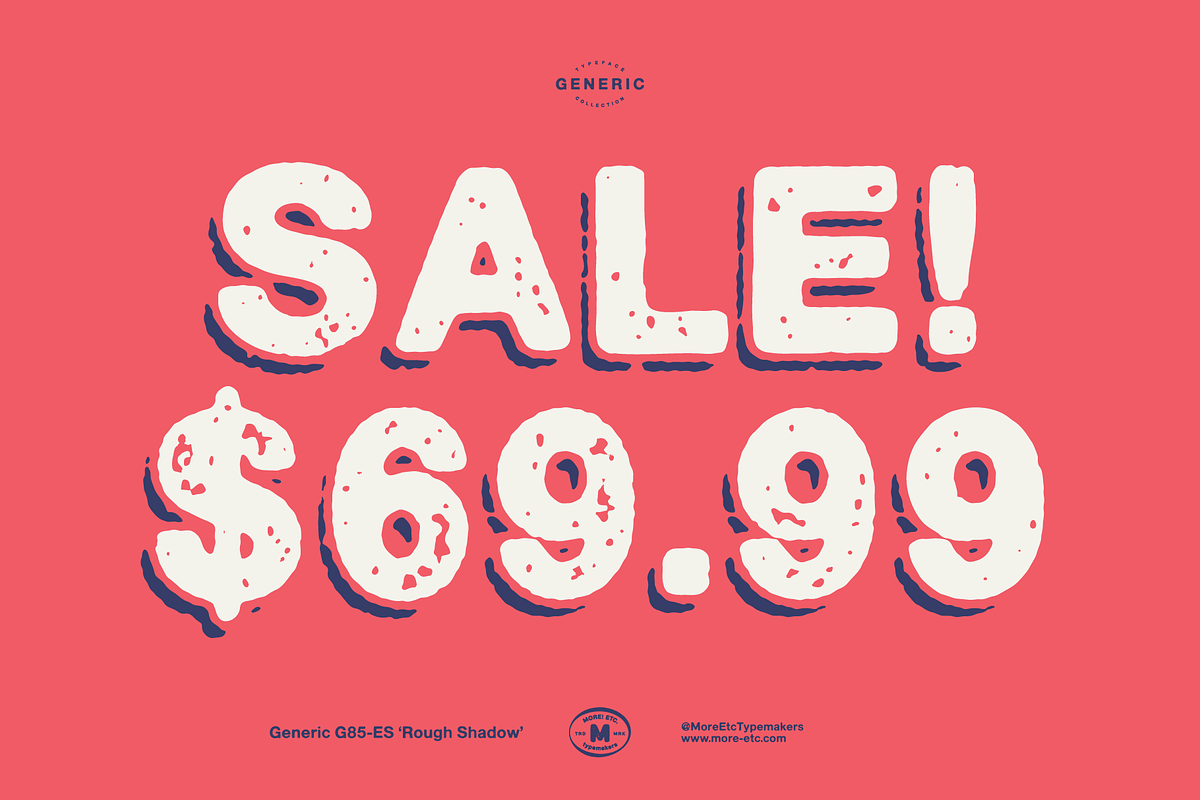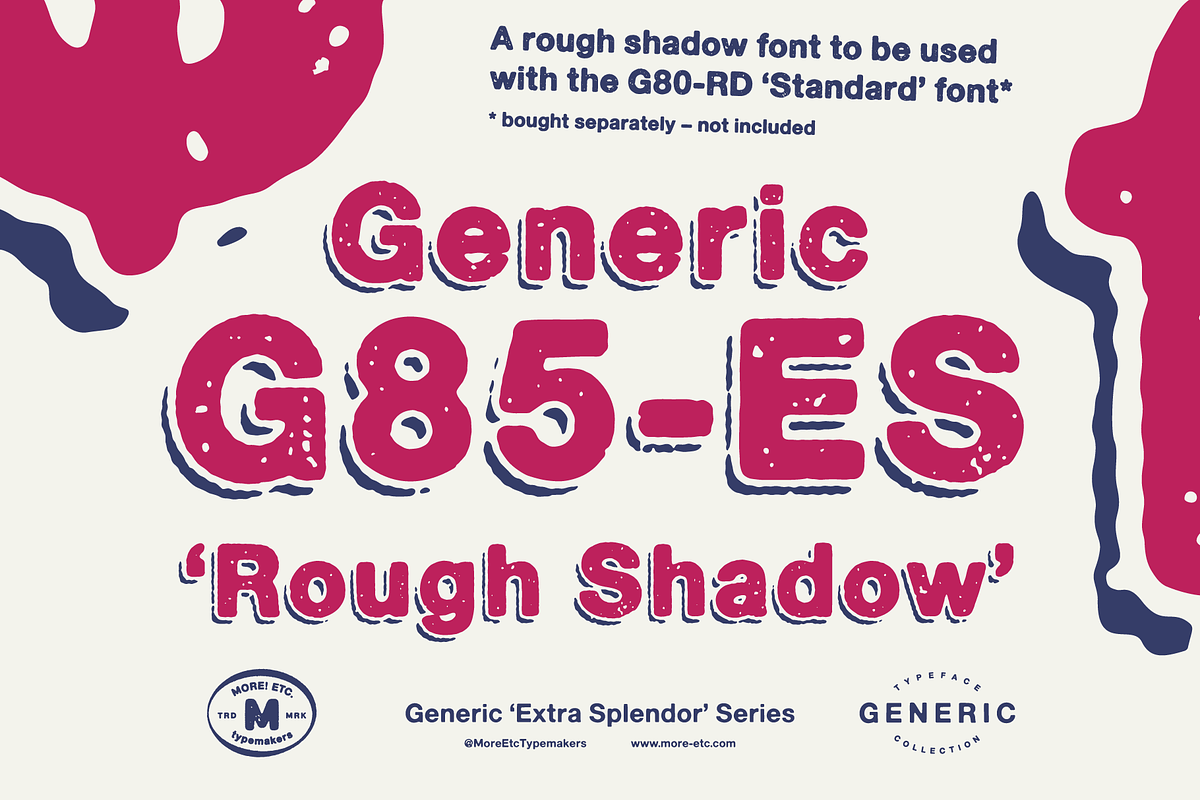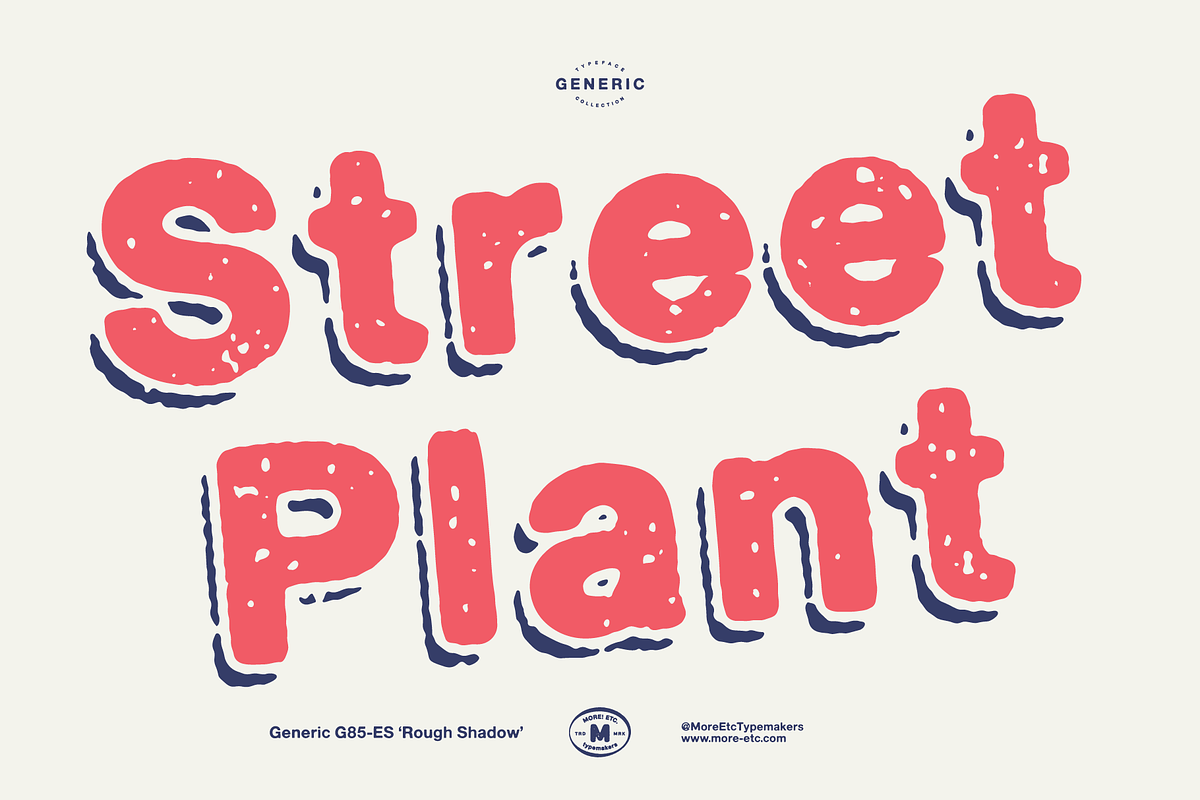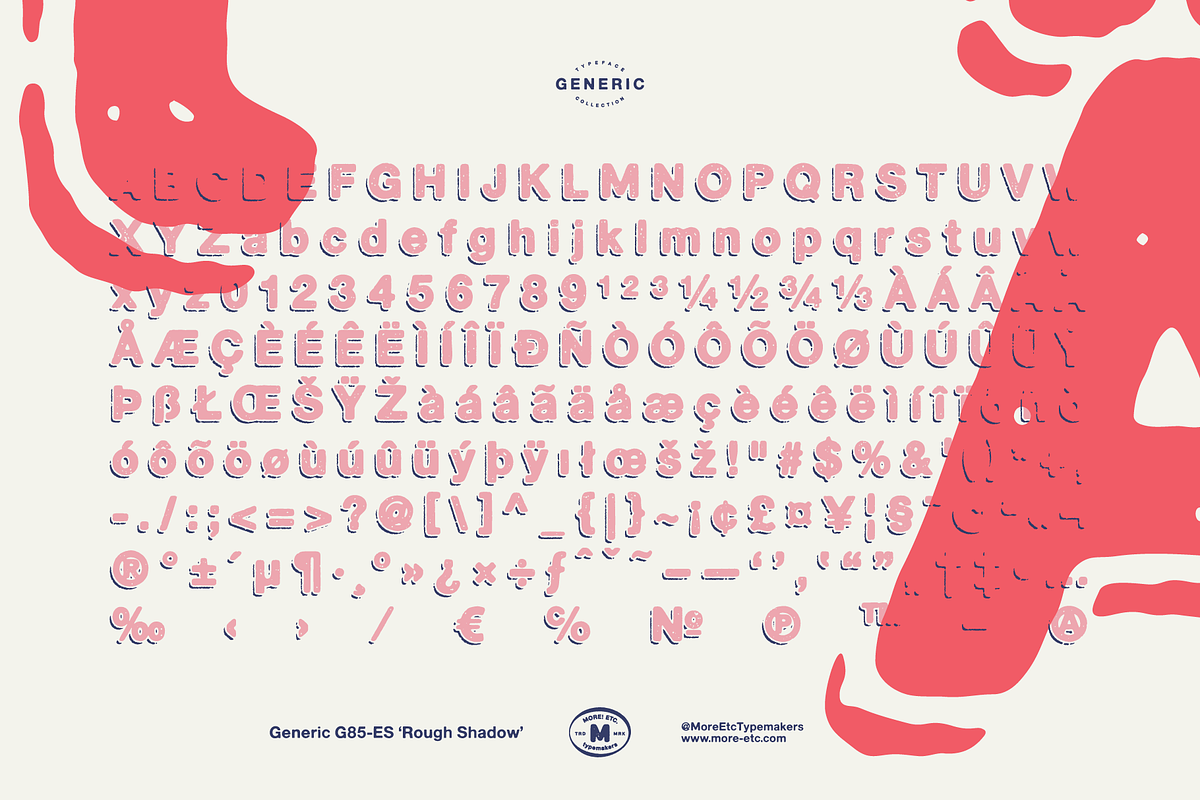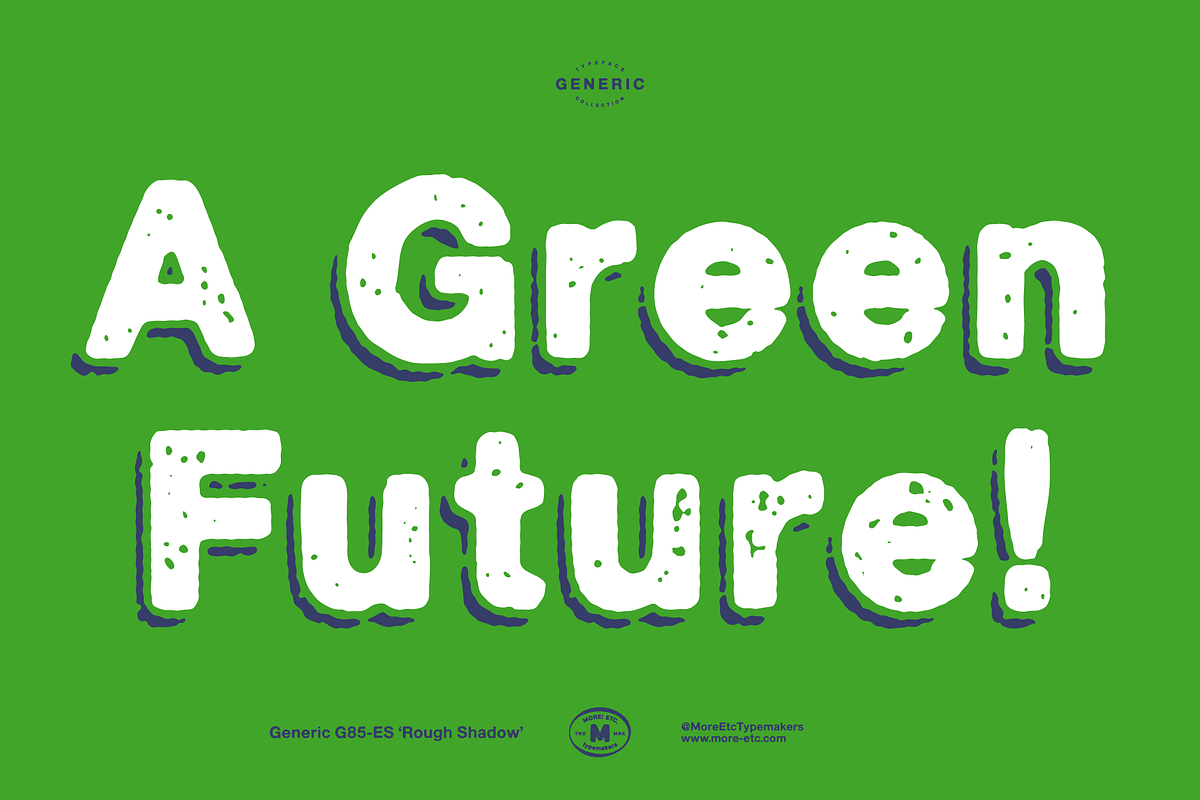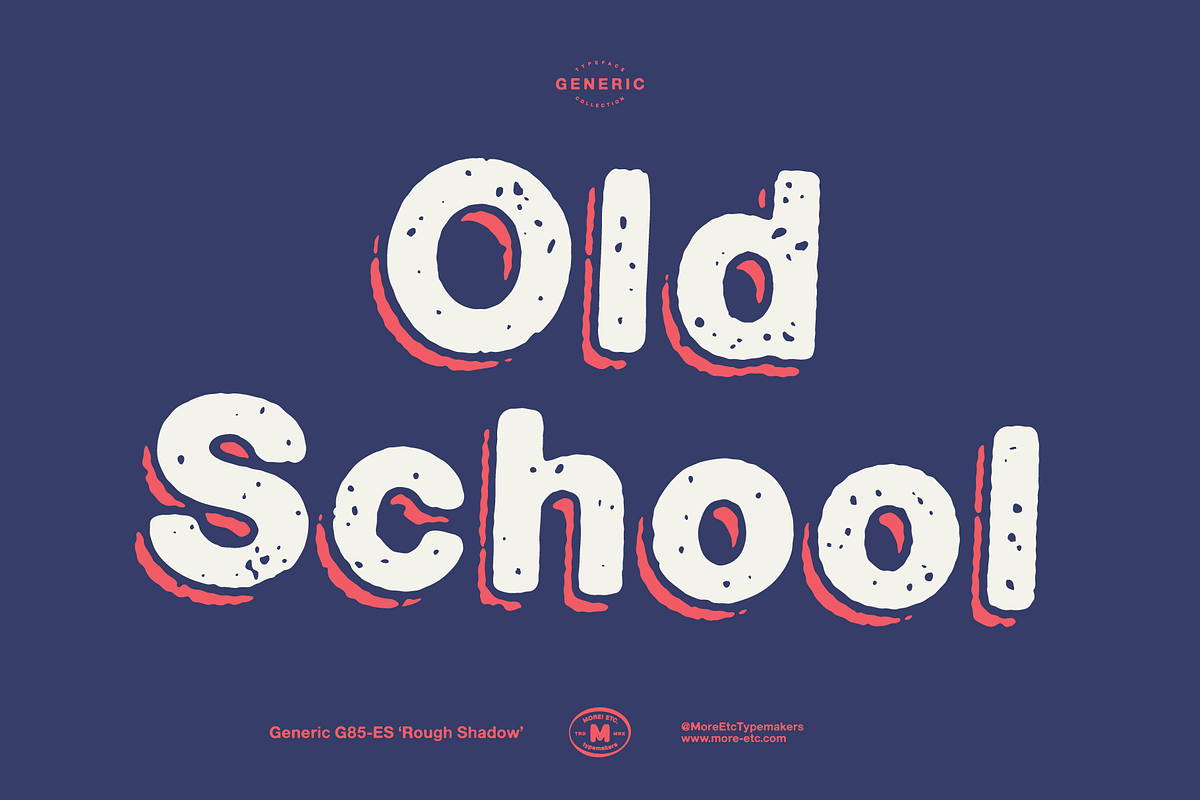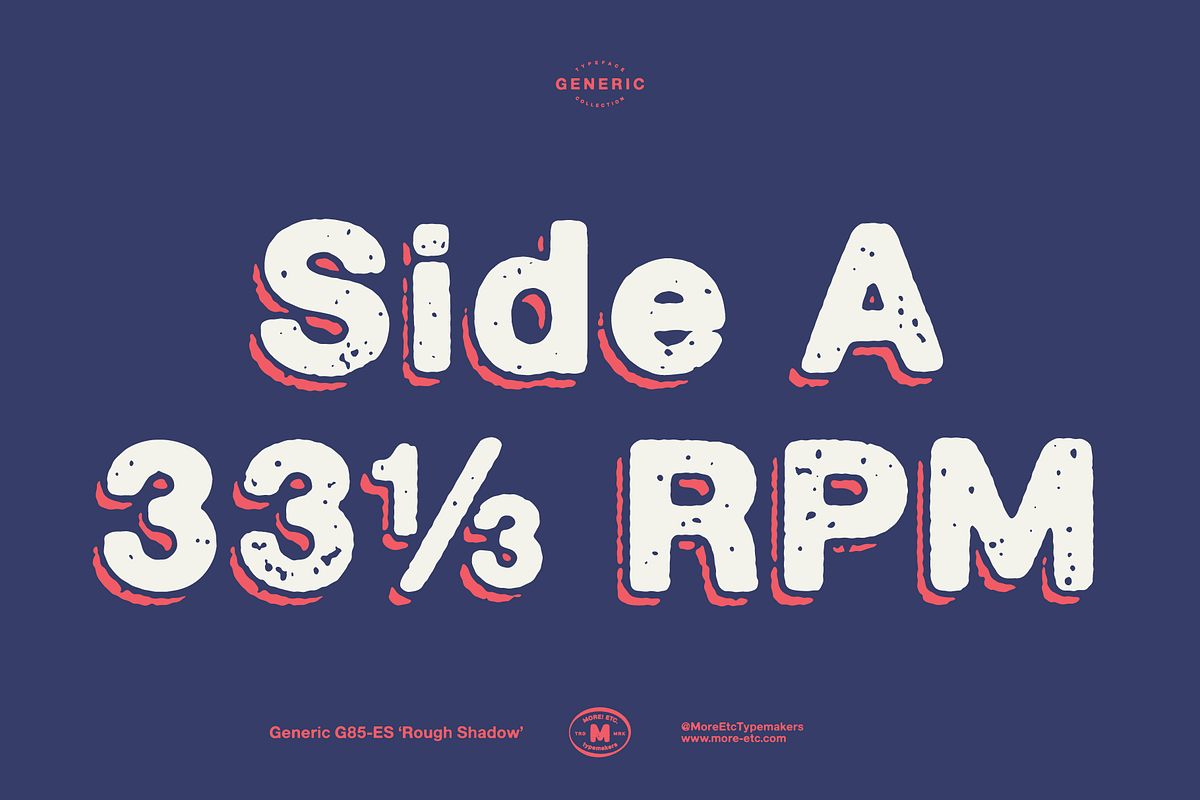
Generic G85-ES 'Rough Shadow'
Say hello to the G85-ES 'Rough Shadow' typeface – a companion shadow font to use with the Generic G80-RD 'Standard' typeface.
Having the shadows separate from the main typeface adds another layer of expressiveness in that you can try out color combinations for that extra splendor.
- Tons of personality
- Great for getting attention
- 228 glyphs
The Generic Typeface Collection is a series of sans-serif typefaces inspired by the craftsmanship of graphic design, typesetting, and printing in the analogue era – before Adobe, Macintosh computers and desktop publishing – when dinosaurs ruled the earth. This is an attempt to incorporate spirit and personality into a set of typefaces without losing distinction. You might call it a homage to non-perfection. I call it human.
The Generic Typeface Collection consists of 11 fonts divided into four series. The three standard series – the Formal Release series, the Coarse Copy series, and the Rough Display series – all contain three fonts each. The Extra Splendor series contains a couple of shadow fonts for that little extra sparkle.